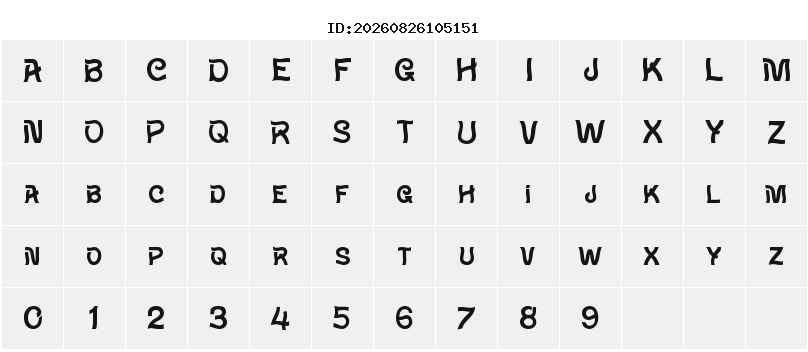
• Font Name: Wave
• Font ID: Altsys Fontographer 3.5 Waverly Regular
• Full Font Name: Wave
• PostScript Name: Waverly Regular
About Wave.ttf
Wave.ttf is a modern, elegant sans-serif font designed for ultimate readability and visual harmony. Perfect for branding, headlines, web design, and print materials.